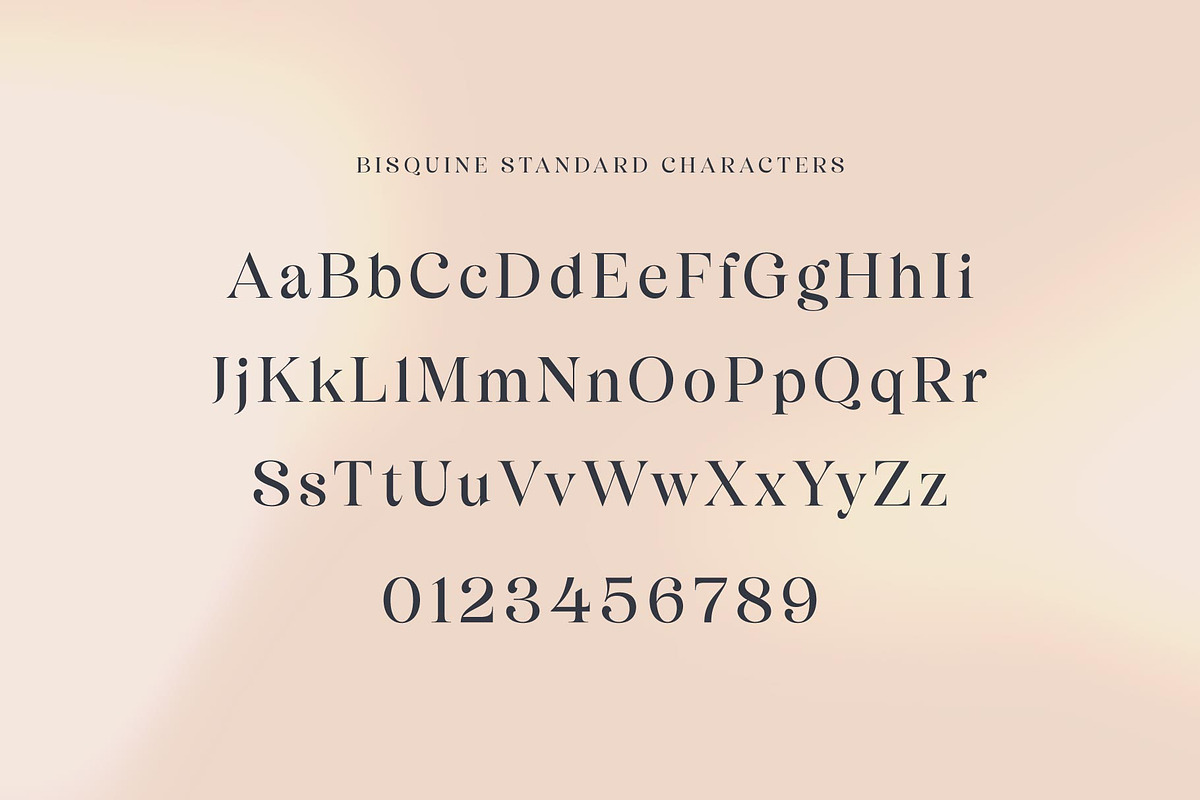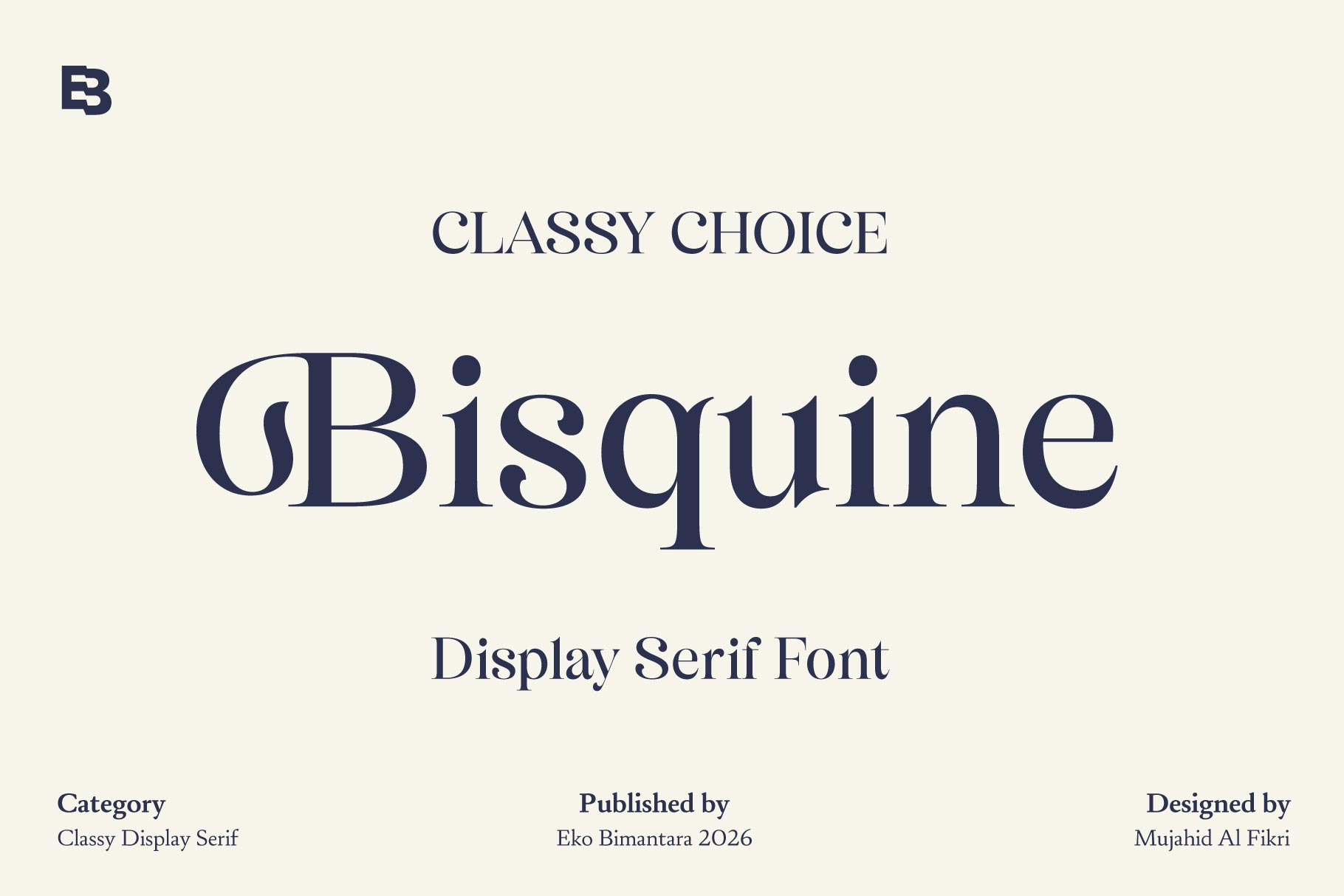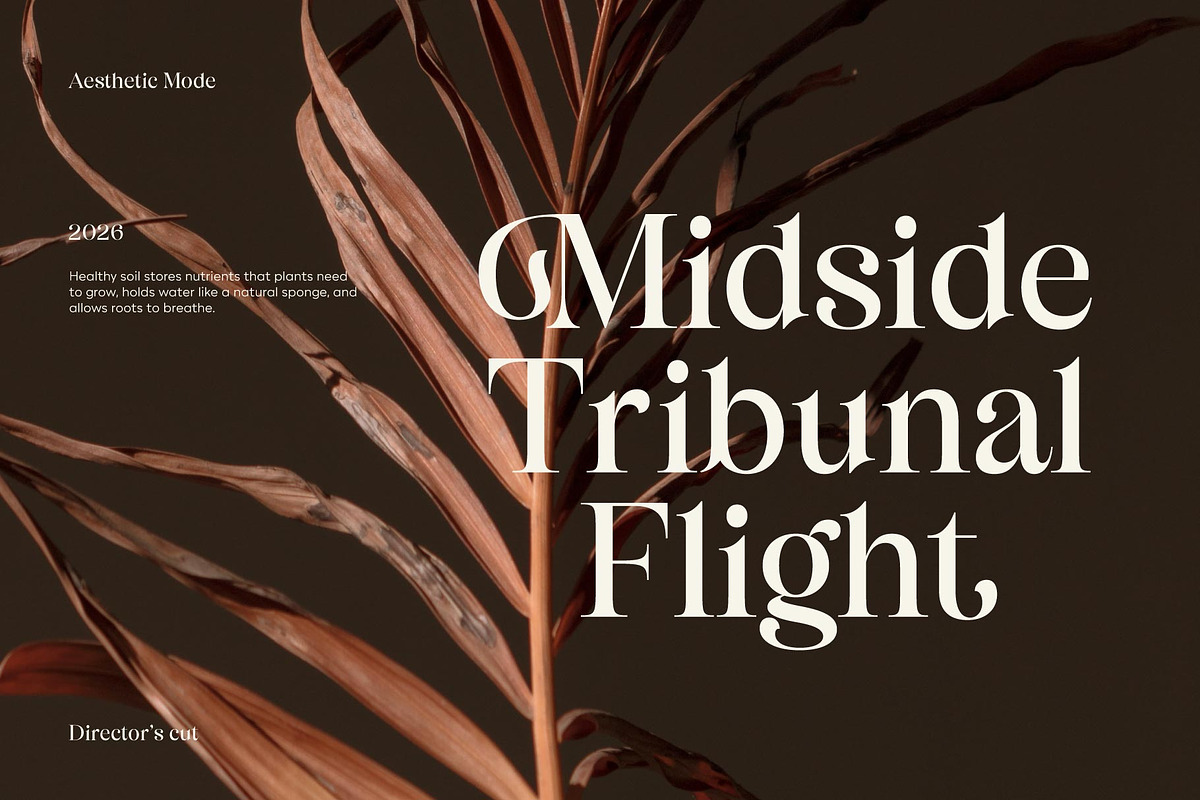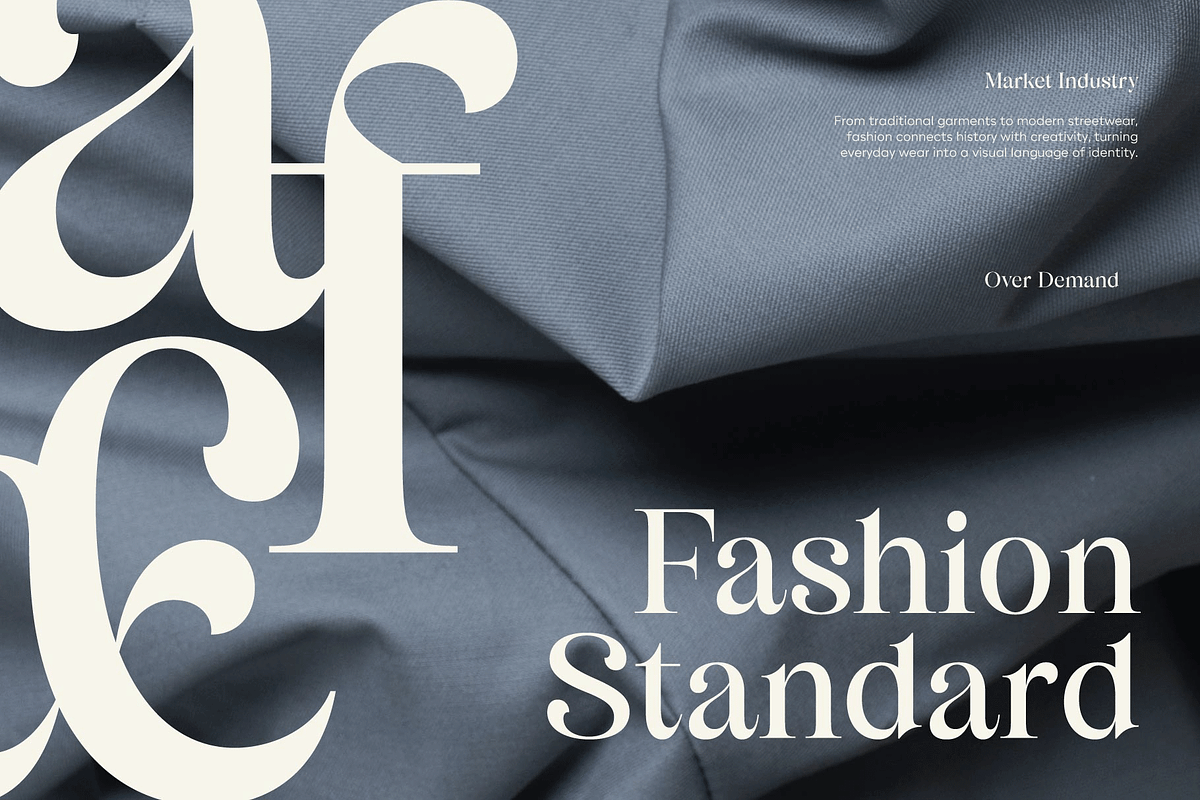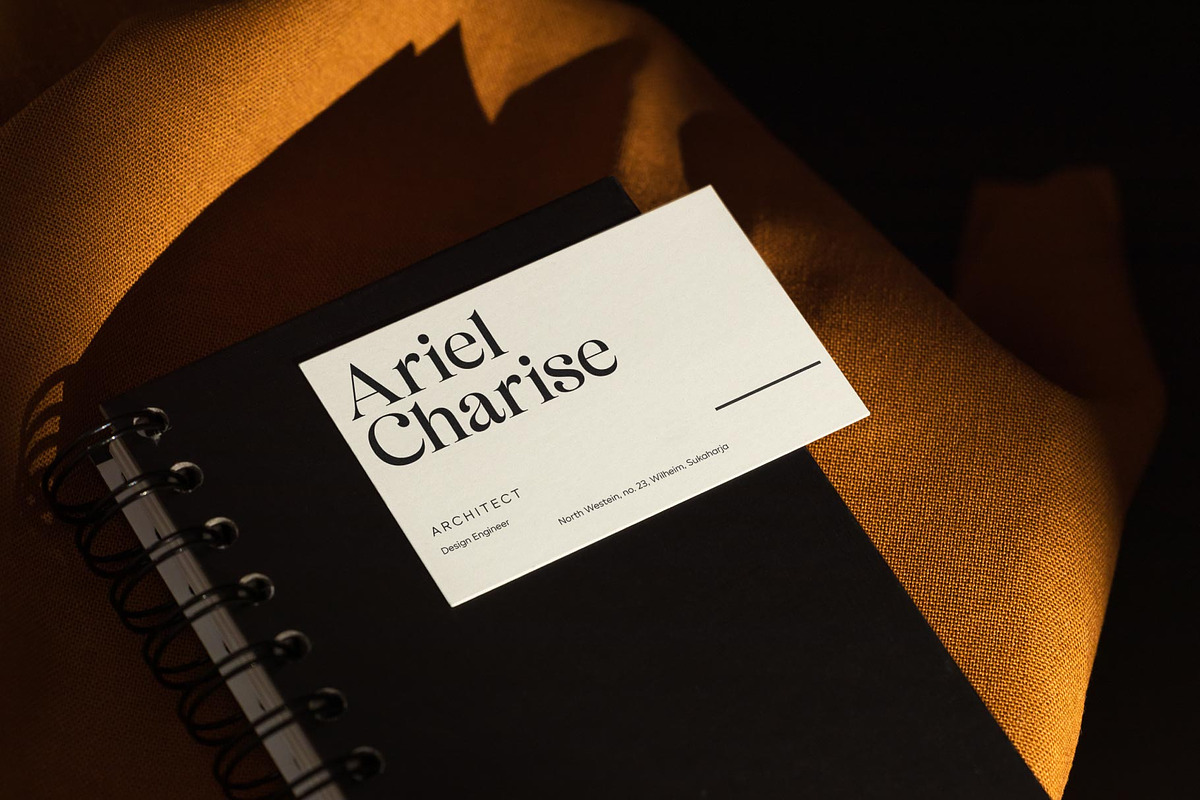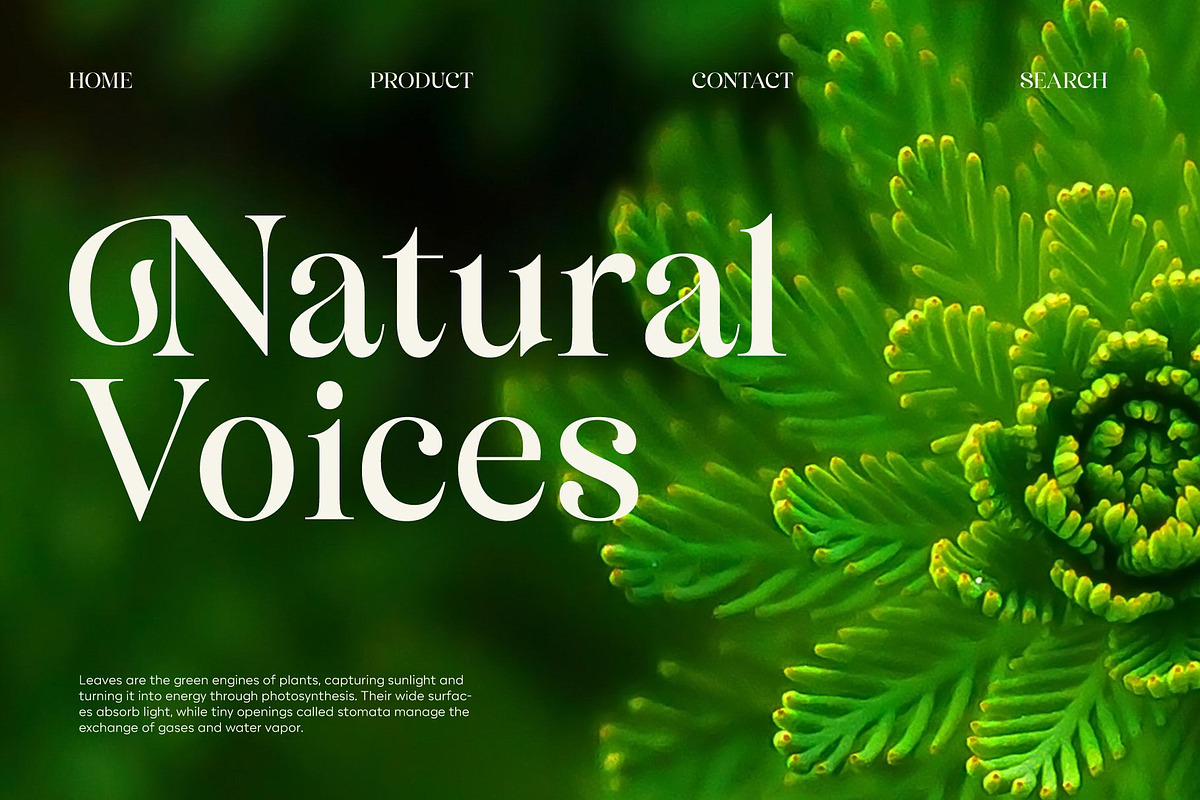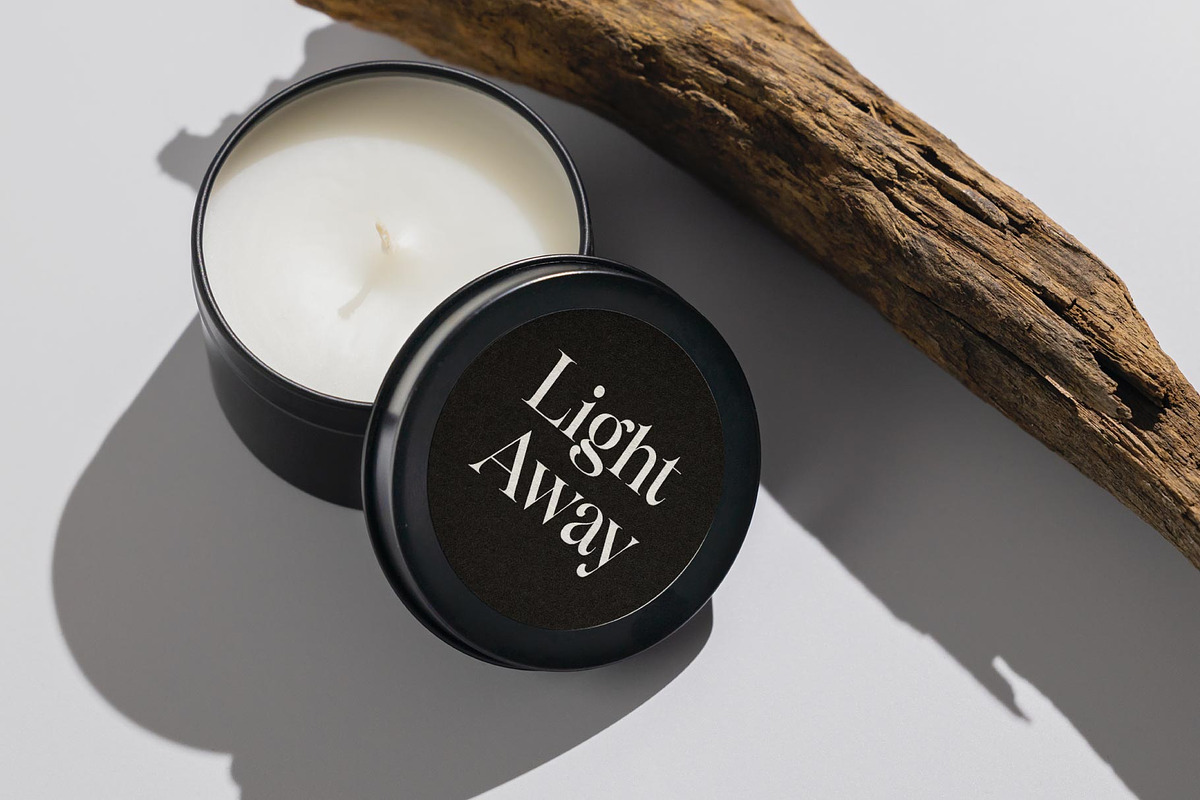
Bisquine; Display Serif Font
Bisquine is an elegant and beautiful display serif font crafted with well-designed letterforms and refined proportions that express sophistication and grace. Enhanced with fancy alternates, it offers decorative flexibility for creating distinctive and stylish typography. Bisquine is ideal for classy branding, feminine designs, web use, headers, titling, and a wide range of creative projects that demand a luxurious and polished visual presence.